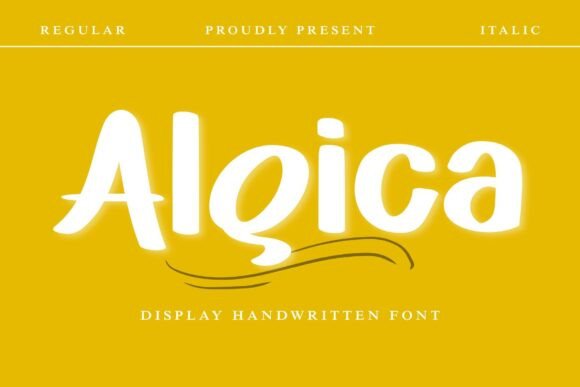
Discover the Charm and Versatility of Algica Font
In the world of typography, fonts play a crucial role in conveying the tone and personality of a brand or design project. With the numerous font options available, it can be challenging to find one that stands out from the rest. However, if you’re looking for a font that exudes elegance, authenticity, and creativity, look no further than Algica Font. In this article, we’ll explore the unique features of Algica, its benefits, and how it can elevate your design projects.
What is Algica Font?
Algica is an eye-catching handwritten display font that echoes the fluid grace of handwritten cursive script. Its unique design offers a dash of authenticity to your personal or corporate design projects, making it an ideal choice for those who want to add a touch of personality to their typography. With Algica, you can invite creativity into your typography and create mesmerizing designs that capture the attention of your audience.
The Unique Features of Algica Font
Algica is more than just a font; it’s a unique expression of artistic creativity and personality. Its innovative design merges aesthetics with user-friendly functionality, making it an excellent choice for designers and non-designers alike. Here are some of the key features that make Algica stand out:
- Handwritten Cursive Script: Algica’s design is inspired by handwritten cursive script, giving it a fluid and natural look.
- Elegant and Authentic: The font exudes elegance and authenticity, making it perfect for designs that require a touch of sophistication.
- Versatile: Algica is a versatile font that can be used in various design projects, from personal to corporate.
- User-Friendly: The font is designed to be user-friendly, making it easy to incorporate into your designs.
Benefits of Using Algica Font
Using Algica Font in your design projects can have numerous benefits. Here are some of the advantages of incorporating Algica into your typography:
- Adds Personality to Your Designs: Algica’s unique design allows you to add a touch of personality to your designs, making them stand out from the rest.
- Enhances Creativity: The font’s creative and artistic design inspires creativity and can help you think outside the box.
- Perfect for Branding: Algica’s elegant and authentic design makes it an excellent choice for branding projects, helping you establish a strong brand identity.
- Easy to Read: Despite its elegant design, Algica is easy to read, making it perfect for body text and headings.
How to Use Algica Font in Your Design Projects
Using Algica Font in your design projects is easy. Here are some tips to get you started:
- Pair it with Other Fonts: Algica can be paired with other fonts to create a unique and visually appealing design.
- Use it for Headings and Titles: The font’s elegant design makes it perfect for headings and titles, adding a touch of sophistication to your designs.
- Experiment with Colors: Algica’s design looks great in various colors, so don’t be afraid to experiment and find the perfect color scheme for your design.
- Use it for Personal and Corporate Projects: Algica is versatile and can be used in both personal and corporate design projects.
In conclusion, Algica Font is a unique and versatile font that can add a touch of elegance and authenticity to your design projects. Its innovative design merges aesthetics with user-friendly functionality, making it an excellent choice for designers and non-designers alike. With Algica, you can invite creativity into your typography and create mesmerizing designs that capture the attention of your audience. So, why not discover the charm and versatility of Algica Font and take your design projects to the next level?
- What is Algica Font?: Algica is an eye-catching handwritten display font that echoes the fluid grace of handwritten cursive script.
- Is Algica Font easy to read?: Yes, Algica Font is easy to read, making it perfect for body text and headings.